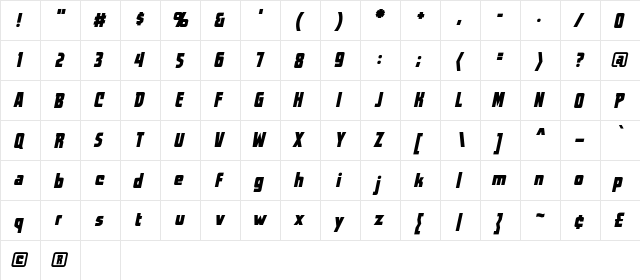
WorldsAtWar BB Italic
Italic · Nate Piekos. Blambot.com Nate Piekos ·
Foundry Nate Piekos. Blambot.com
DesignerNate Piekos
Design Context for WorldsAtWar BB Typeface
WorldsAtWar BB offers clean, dependable letterforms without strong stylistic allegiance, making it a practical choice for designers who need flexibility. Its italic angle brings a sense of urgency and motion to the letterforms.
Pro Tip: Try WorldsAtWar BB for annotation and caption copy alongside an upright companion — the contrast in angle creates a dynamic but ordered typographic system.